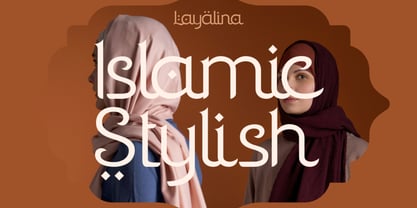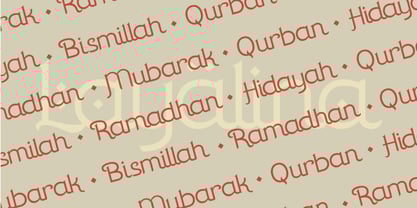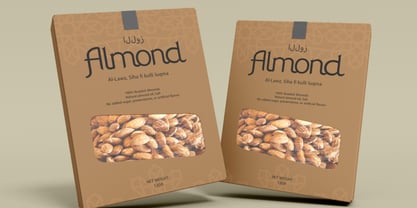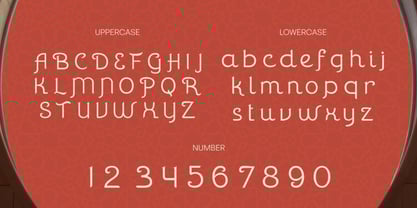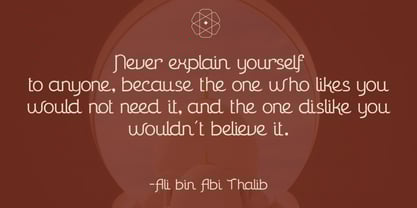
Layalina
Elevate your designs with Layalina Islamic Font, a modern font perfect for adding elegance and style to your projects. This font offers key features like OpenType format compatibility, uppercase and lowercase characters, plus numerals and punctuation, perfect for versatile and professional designs. Whether it’s for quotes, logotypes, magazine headers or more.